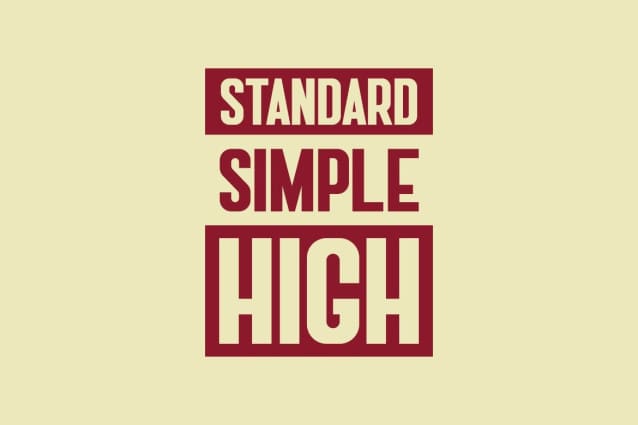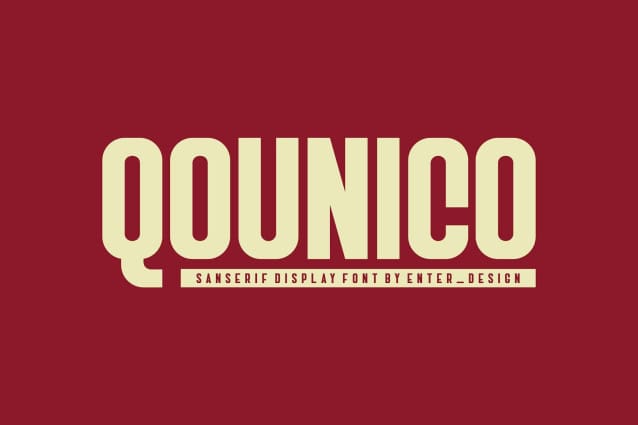
Qounico Font
Qounico Font – Modern Font is a bold and authentic display font. The font is suitable for all branding projects such as Logo, esports, etc. It is exceptional in a wide range of contexts